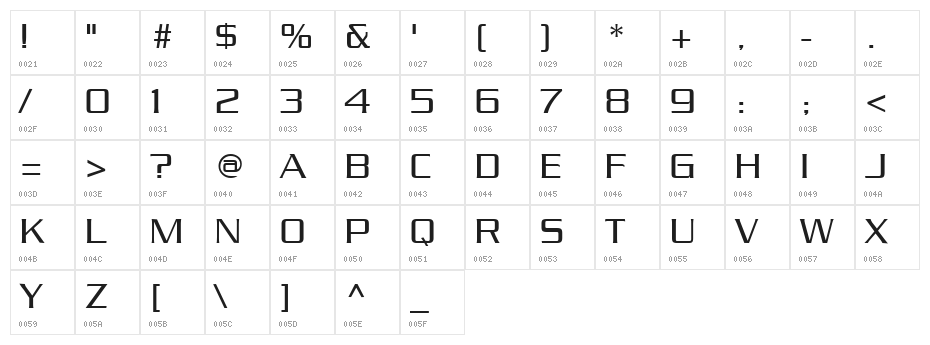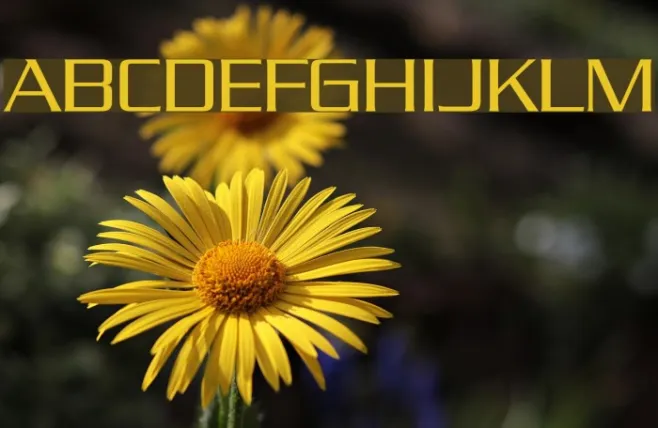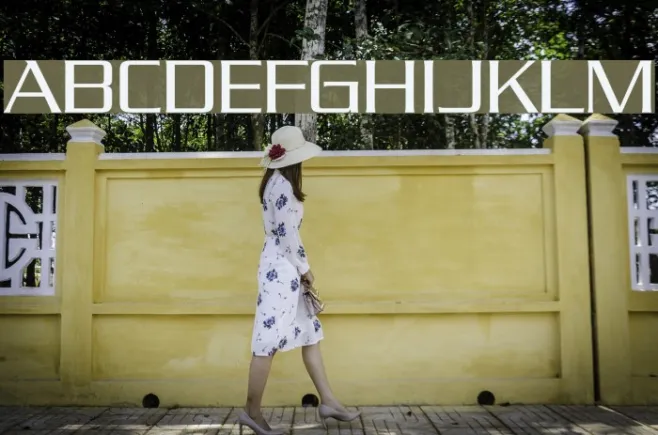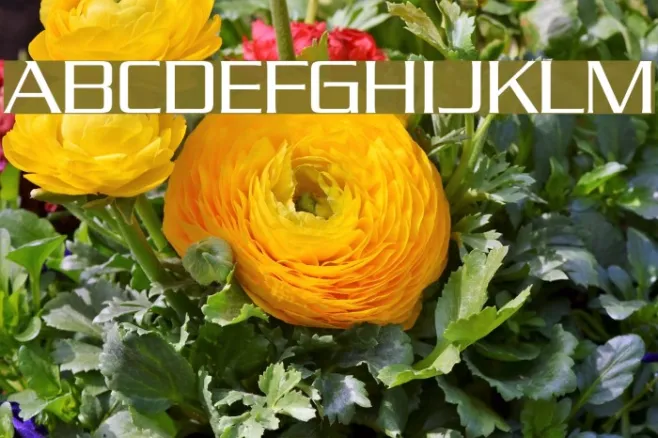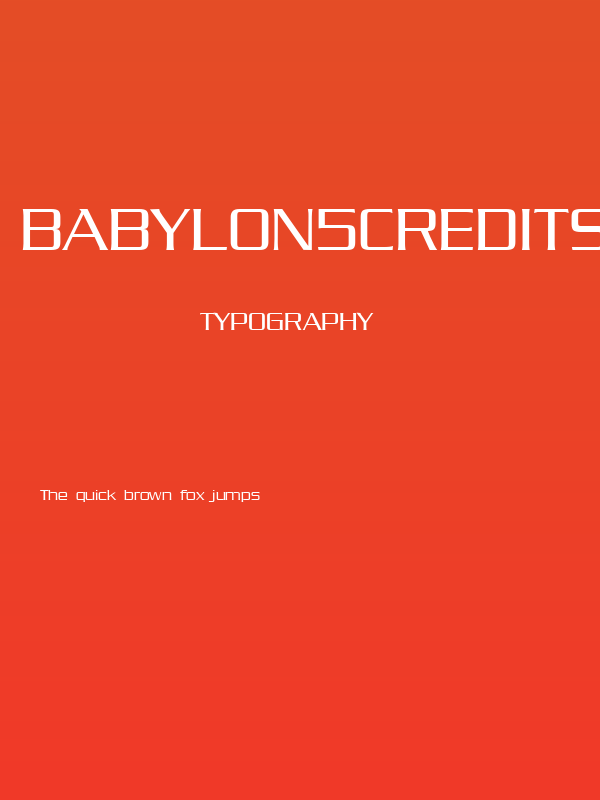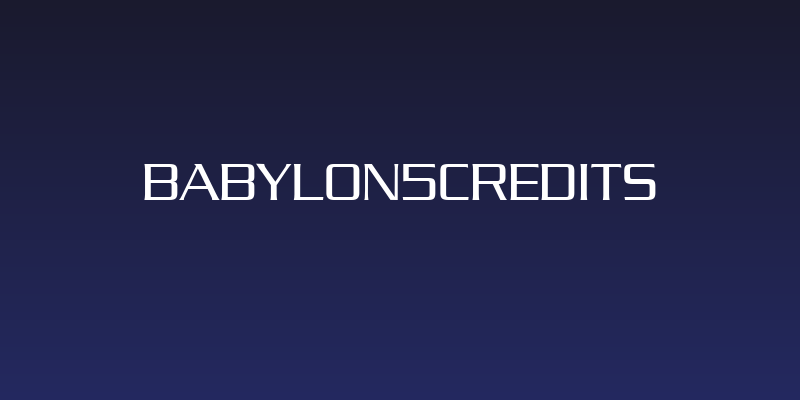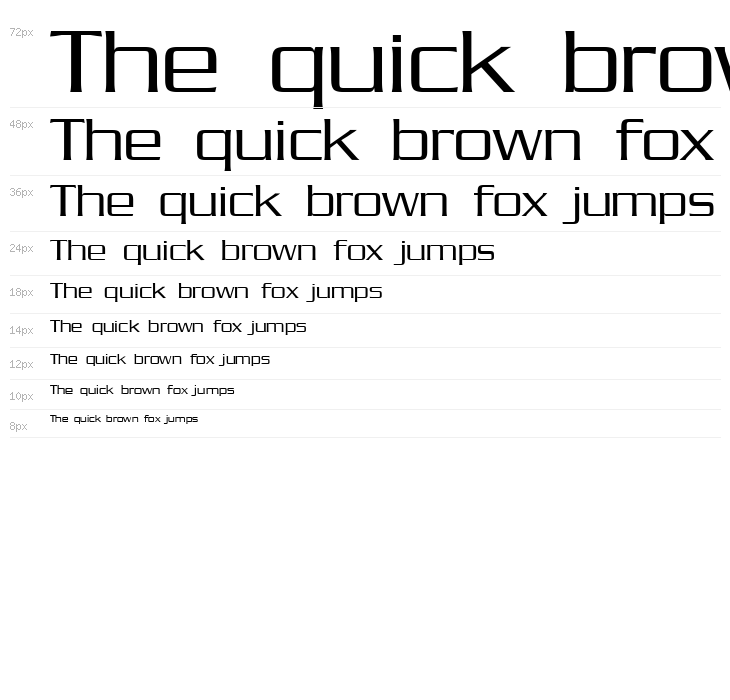
Babylon5Credits Font
Babylon5Credits Description
This font features a futuristic and sleek design, characterized by its geometric and angular letterforms. The uppercase letters are bold and commanding, with sharp edges and a slightly condensed appearance. The lowercase letters maintain a consistent style, offering a modern and streamlined look. The numerals are distinct and easy to read, complementing the overall aesthetic. Special characters are well-integrated, maintaining the font's cohesive design. This typeface is ideal for projects requiring a modern and tech-inspired feel.
| Proposed Projects | Ideal for sci-fi themed projects, technology branding, video game interfaces, and modern advertising. |